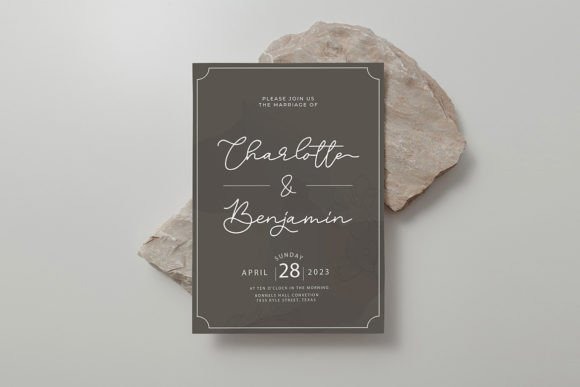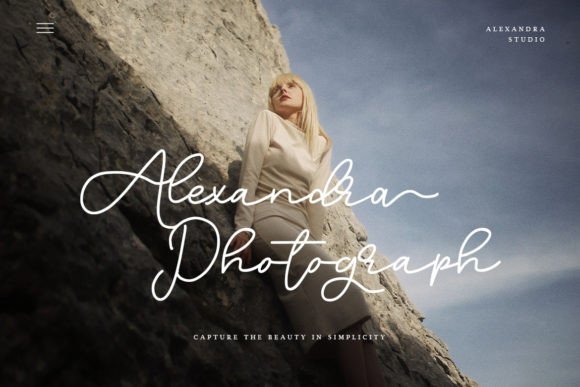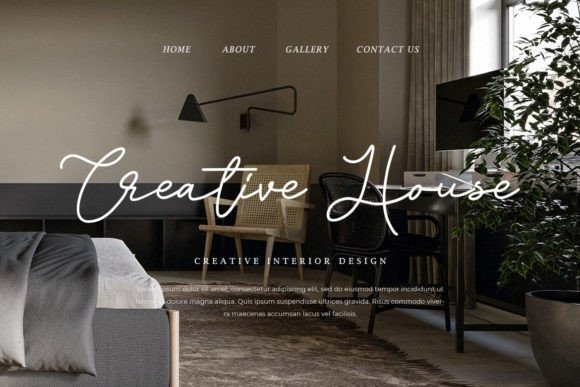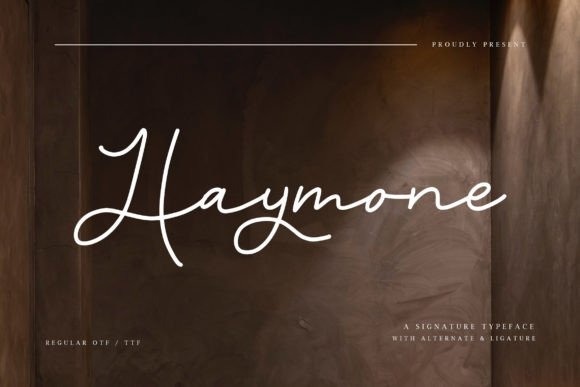
Haymone Handwritten Font is a charming handwritten font to add your typography design looks modern yet elegant. It’s perfect for logos, product packaging, and wedding invitations. This font is PUA encoded which means you can access all of the glyphs and swashes with ease!